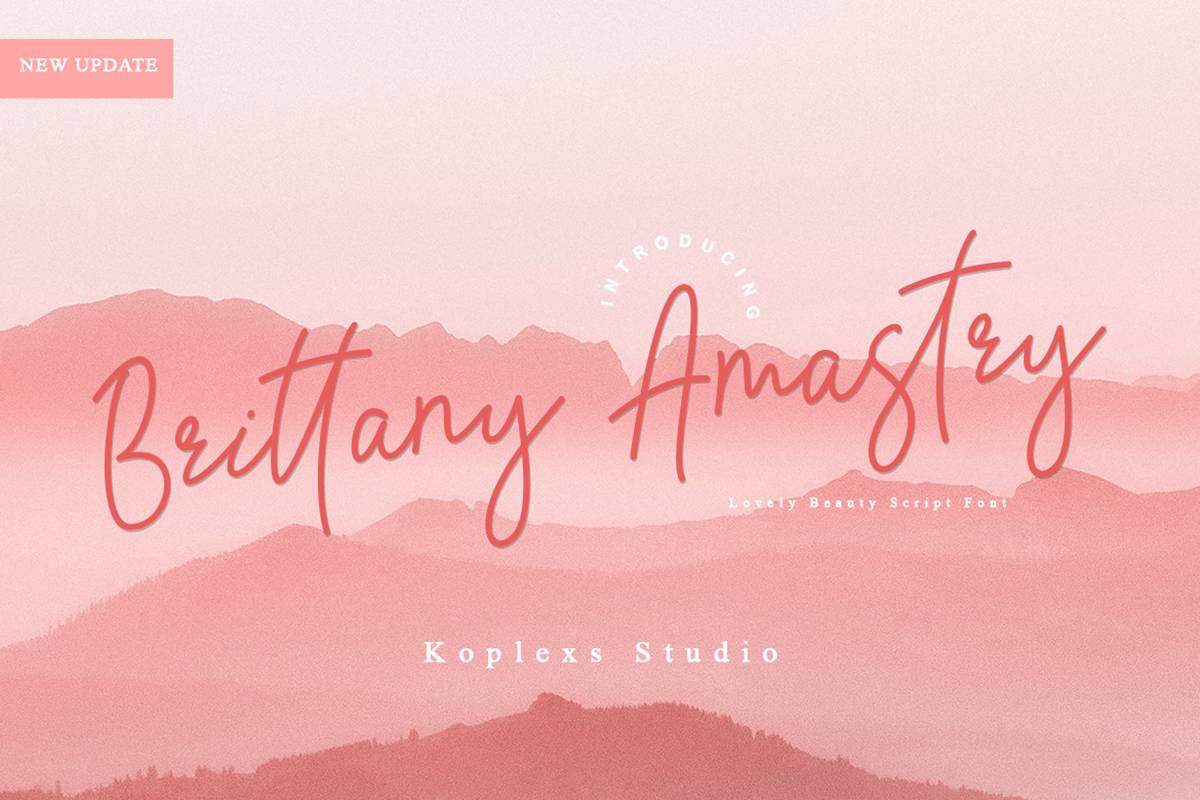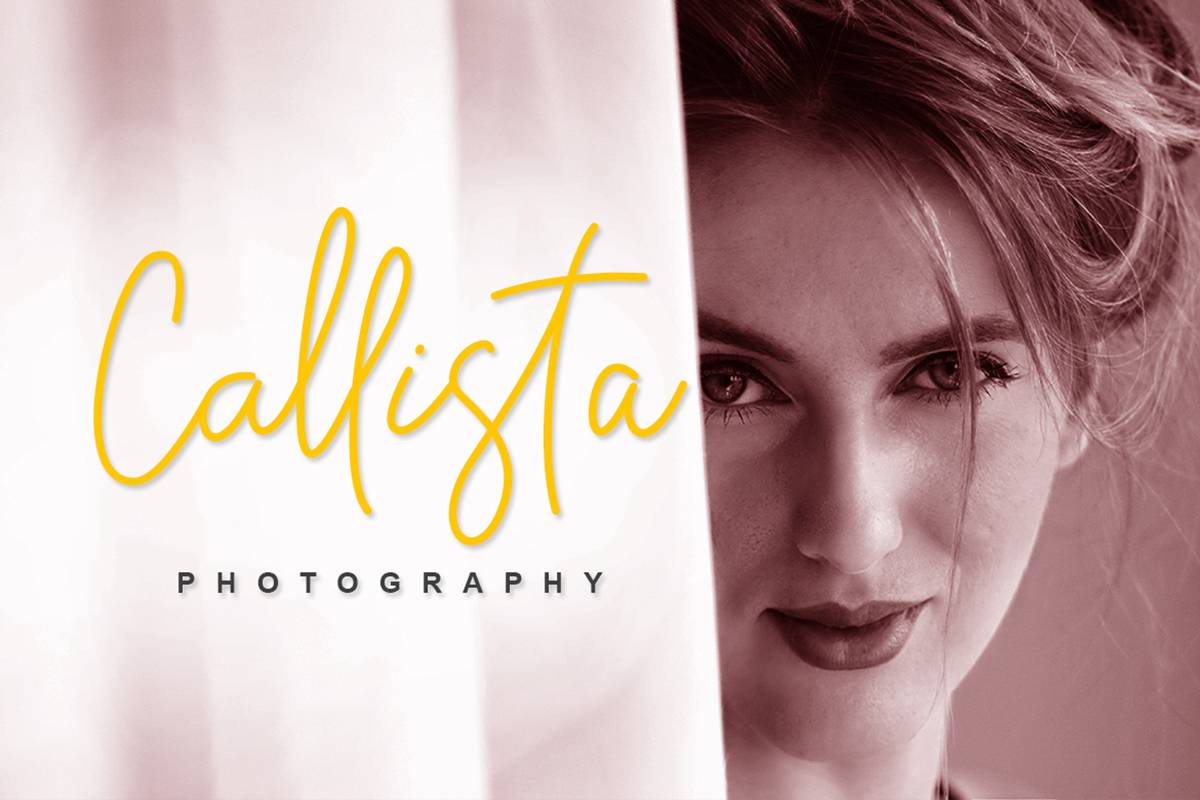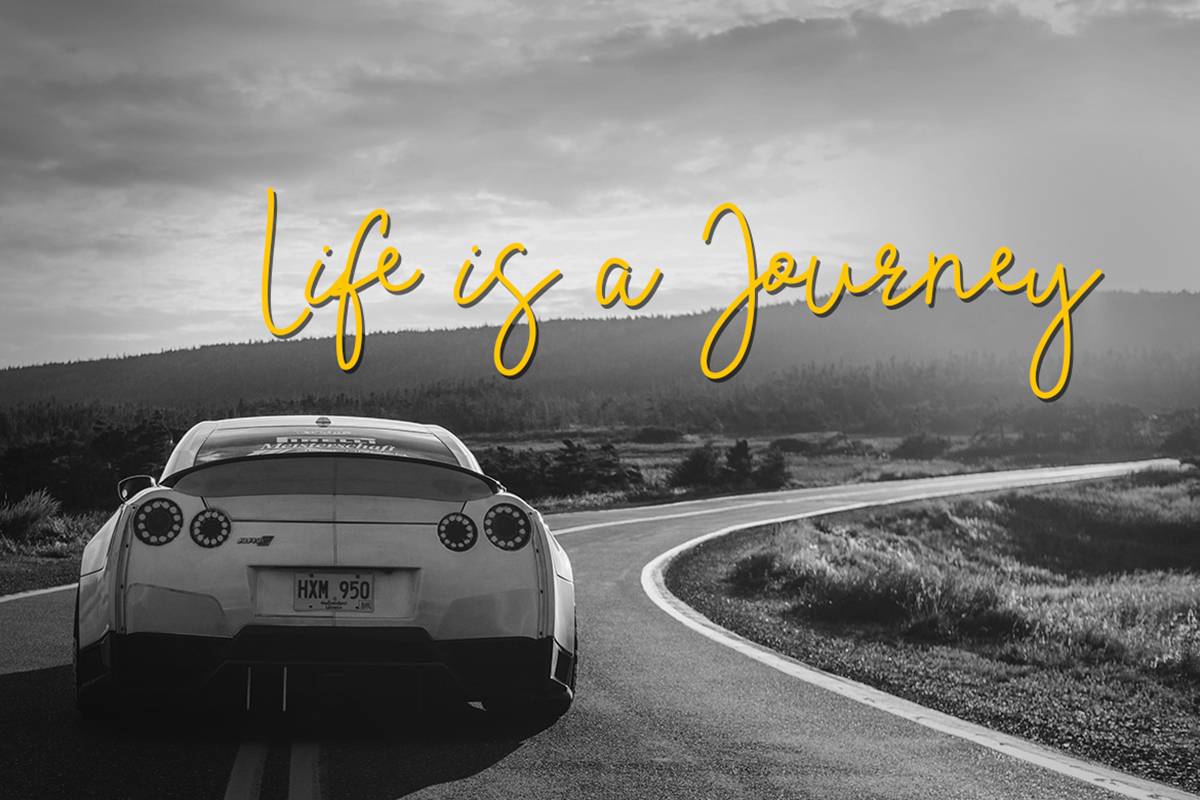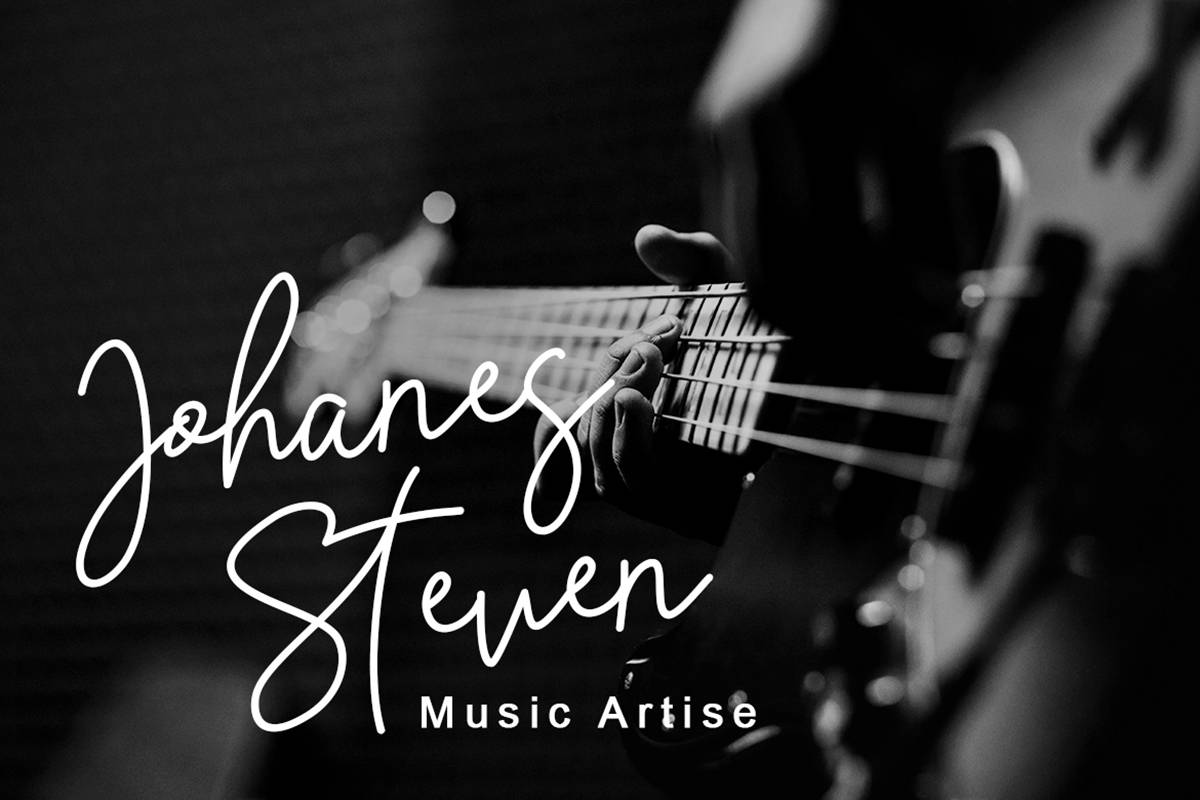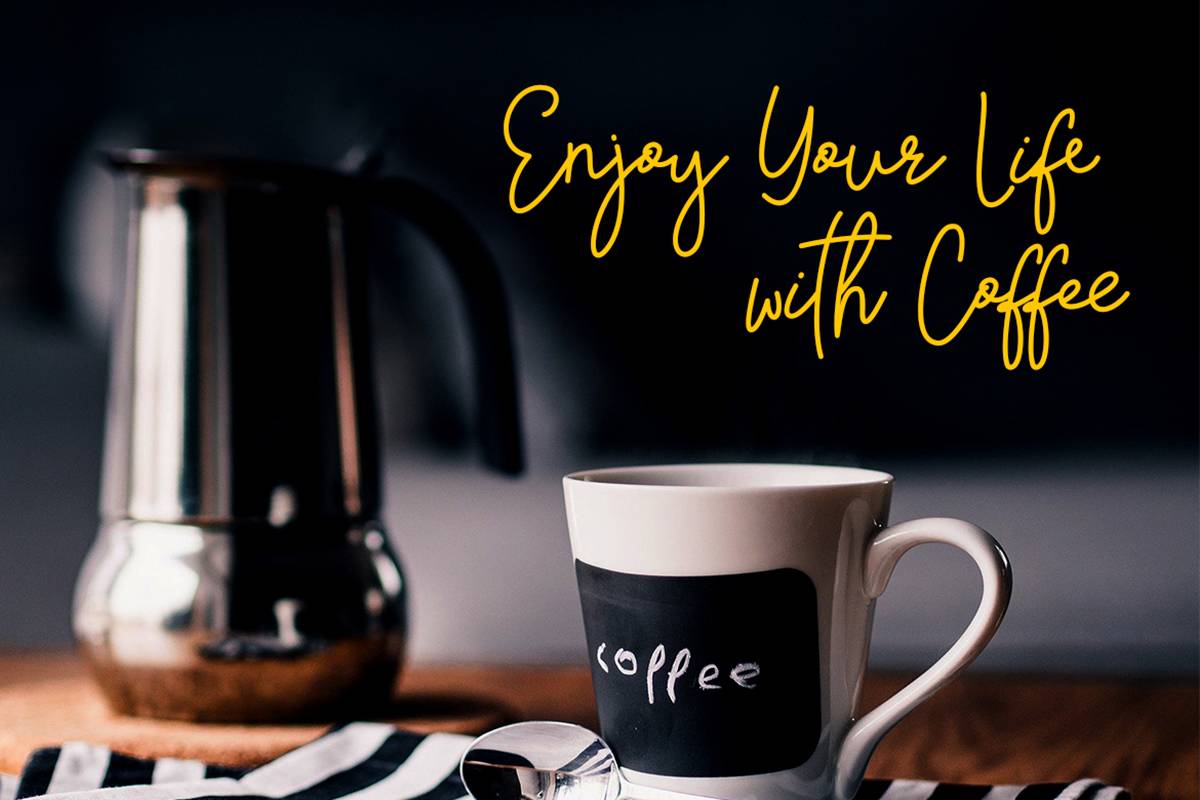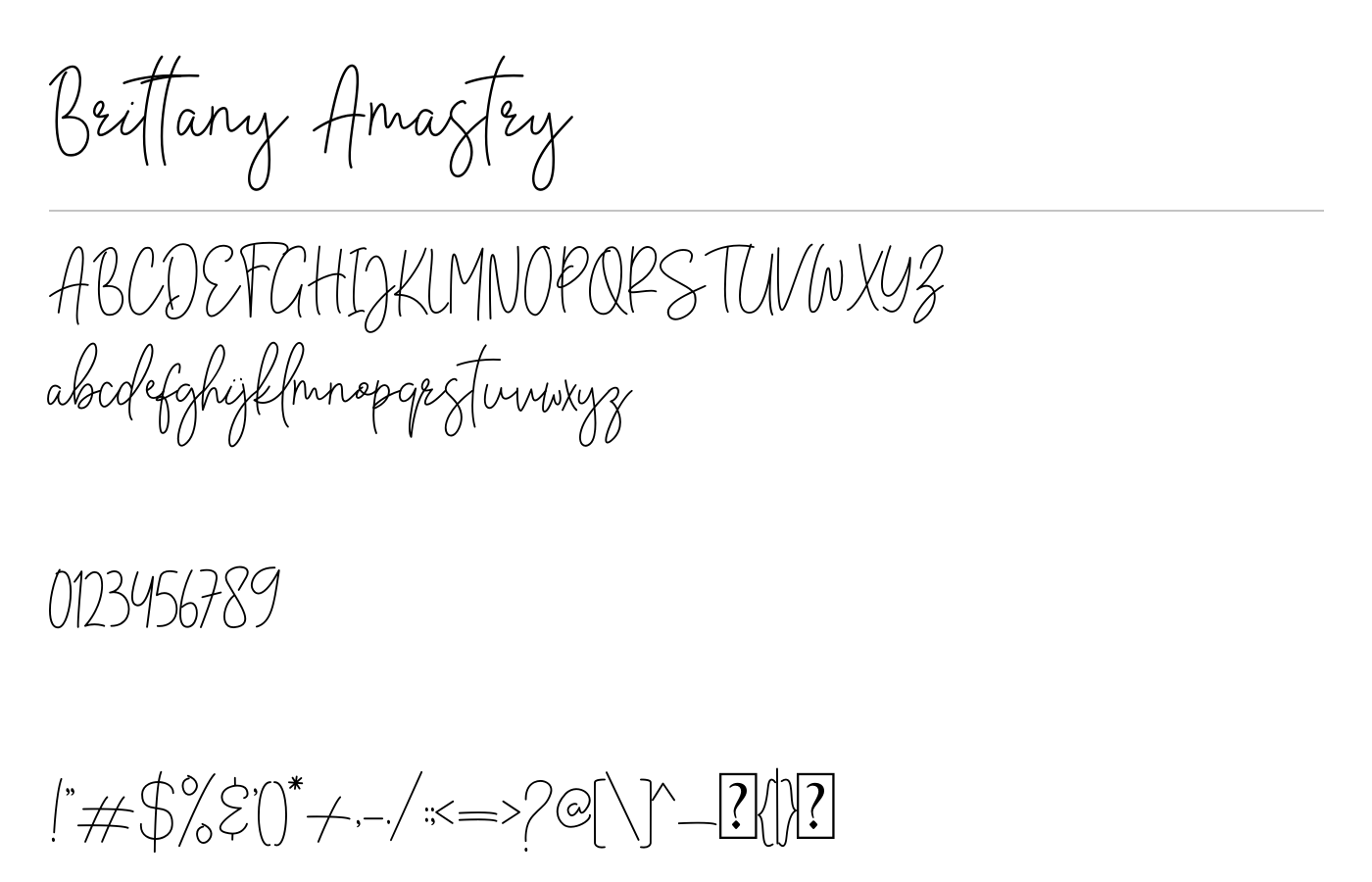
Brittany Amastry is a delicate, handwritten script font characterized by its thin, flowing lines and elegant tall letterforms. With a natural, casual feel, it works beautifully for creative projects, invitations, and branding that seeks a personal, charming touch. This font’s airy, refined style makes it perfect for adding a sophisticated yet approachable vibe to designs.
Brittany Amastry Font
About Brittany Amastry Font
| Font family | Brittany Amastry Font |
| Release date | 2020-11-25 |
| Designer | Ahmad Muslimin |